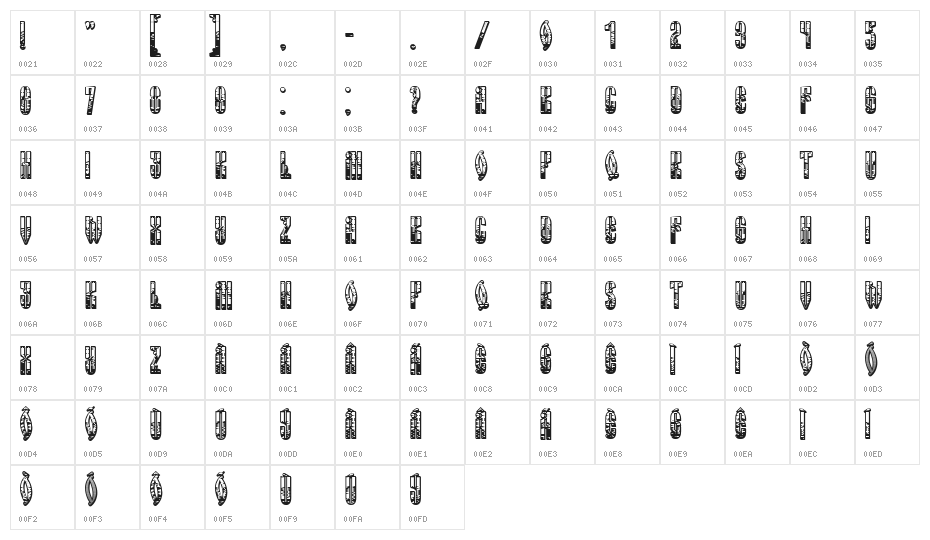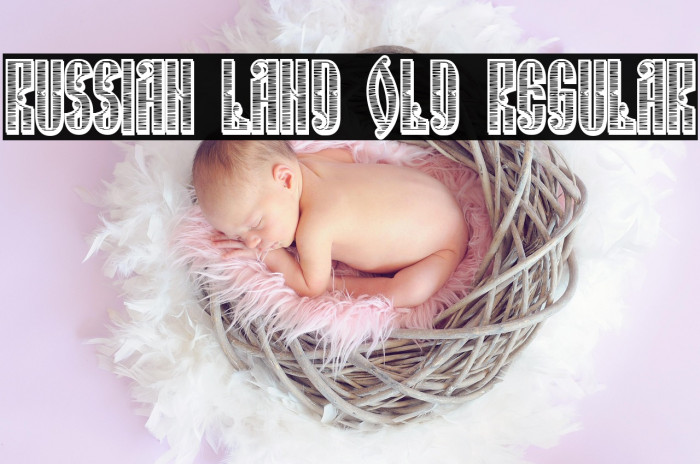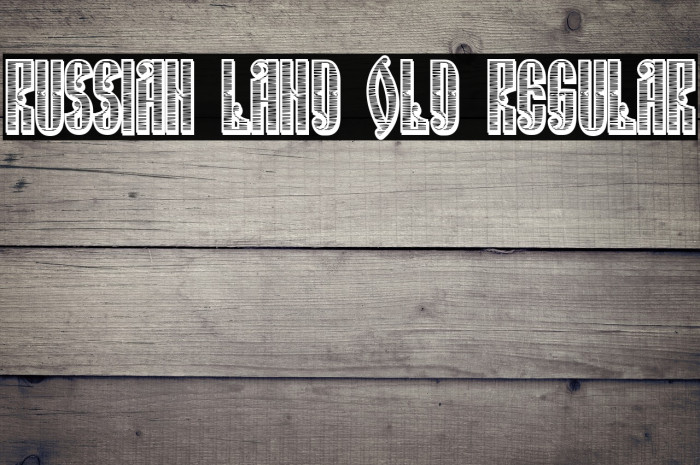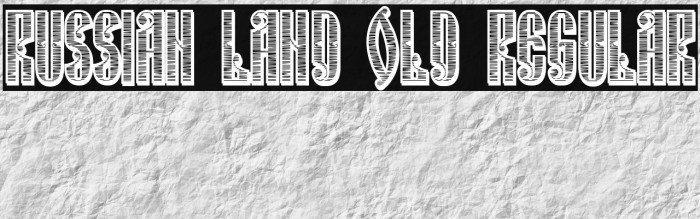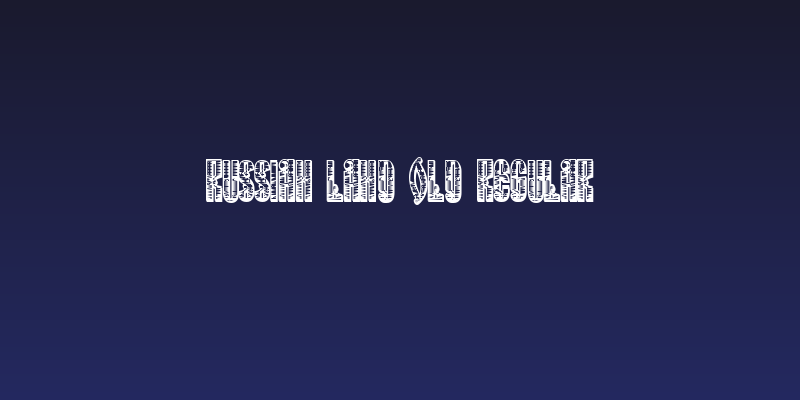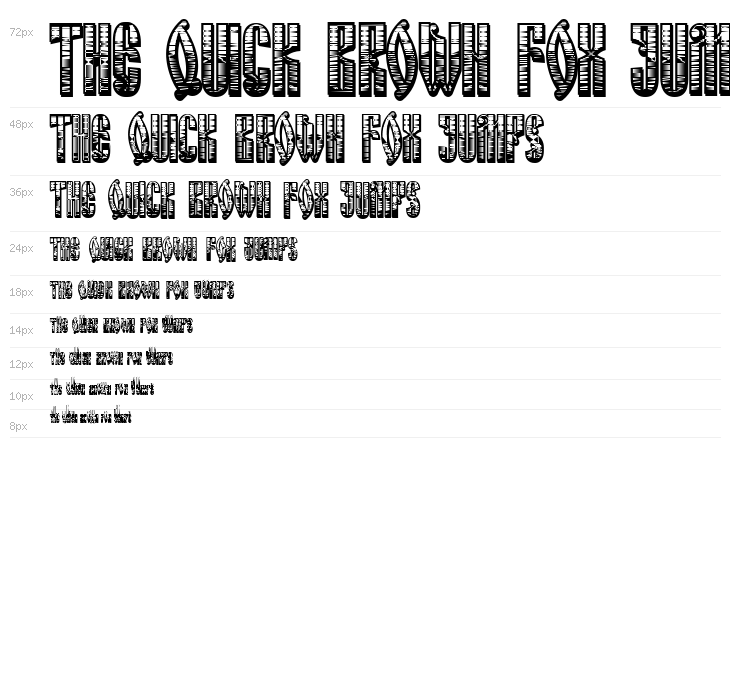
Russian Land Old Regular Font
Russian Land Old Regular Description
This font exhibits a bold and decorative style with intricate line patterns within each character, giving it a textured appearance. The uppercase and lowercase letters maintain a consistent design, characterized by a strong vertical emphasis and ornate detailing. The numbers and special characters follow the same decorative theme, ensuring uniformity across the typeface. The overall aesthetic is reminiscent of vintage or historical designs, making it suitable for projects that require a distinctive and eye-catching typeface.
| Proposed Projects | Ideal for vintage-themed posters, book covers, branding for historical or cultural events, and decorative signage. |